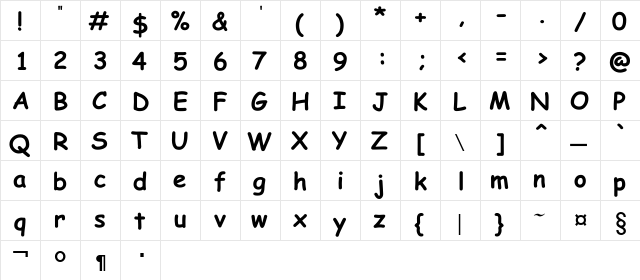
Attari_Salees Regular
| Designer | Mr. Jamil-ur-Rehman |
Design Context for Attari_Salees Typeface
Attari_Salees offers clean, dependable letterforms without strong stylistic allegiance, making it a practical choice for designers who need flexibility.